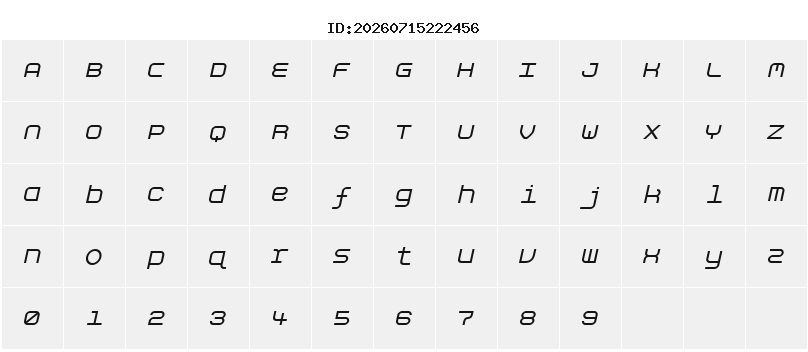
• Font Name: AspirinIntoxicate
• Full Font Name: AspirinIntoxicate
About AspirinIntoxicate.ttf
AspirinIntoxicate.ttf is a modern, elegant sans-serif font designed for ultimate readability and visual harmony. Perfect for branding, headlines, web design, and print materials.